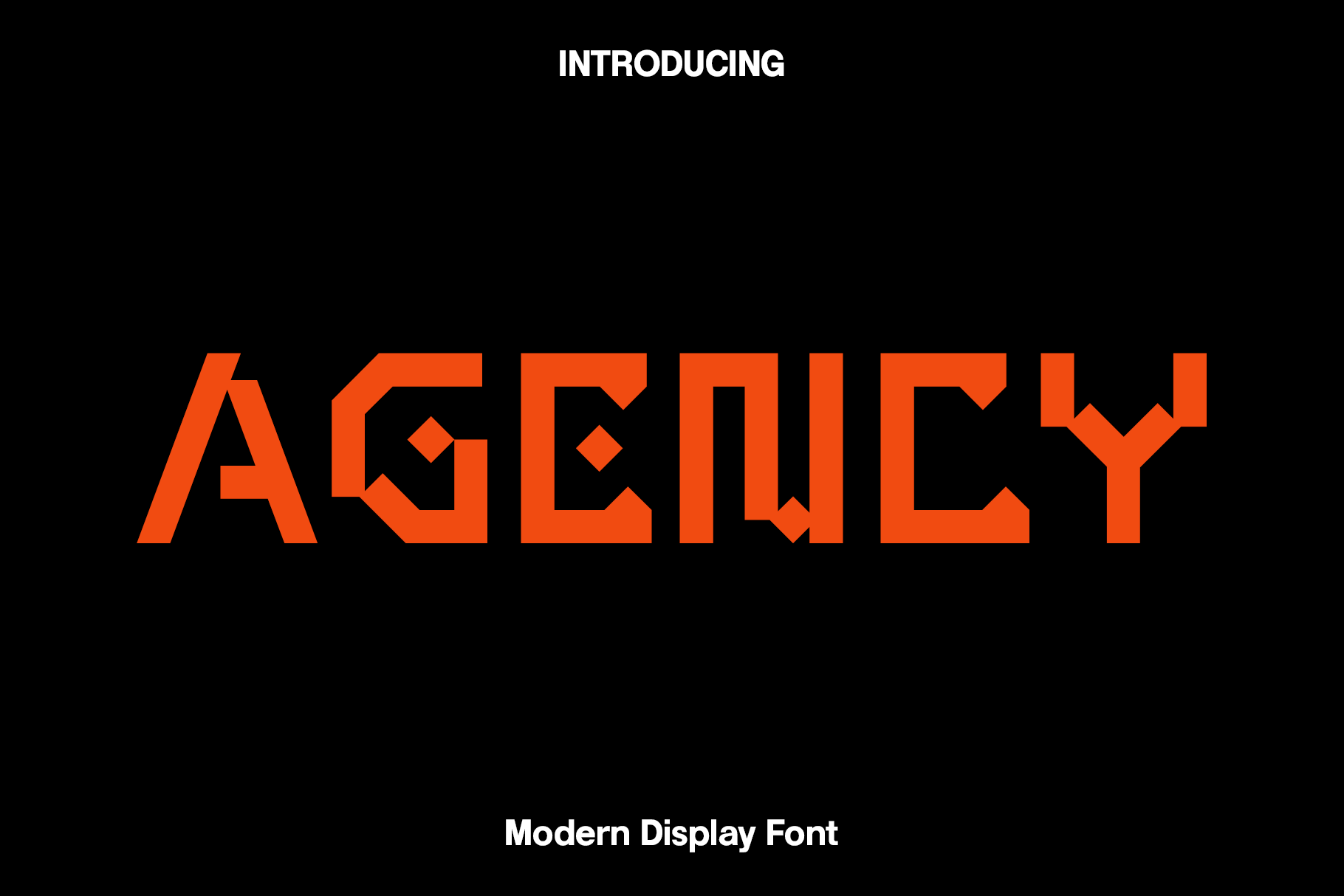
Agency - Futuristic Display Font
Agency is a bold futuristic display font featuring sharp modern cutouts and a distinctive dynamic slant. Designed to create a strong sense of speed, movement, and power, Agency combines striking letterforms with a balanced structure that keeps the typography clear and impactful. Its futuristic details give it a unique visual personality, making it an excellent choice for contemporary designs that demand attention.
Perfect for poster titles, menu flyers, packaging, logos, monograms, branding, promotional graphics, and modern display typography, Agency brings an energetic and powerful presence to your designs. Its fast-paced structure works especially well for projects inspired by technology, sports, gaming, automotive culture, entertainment, and modern urban aesthetics.
Whether you are creating a bold headline, futuristic brand identity, promotional artwork, product packaging, or social media graphics, Agency adds a distinctive modern edge. The combination of futuristic cutouts, dynamic angles, and strong proportions makes it versatile enough for both print and digital applications while maintaining a memorable visual impact.
Agency Font Features:
Futuristic display style
Modern cutout details
Dynamic slanted structure
Bold and powerful letterforms
Strong visual impact with good legibility
Uppercase characters
Lowercase characters
Suitable for posters, flyers, packaging, logos, monograms, branding, gaming, sports, automotive, and more